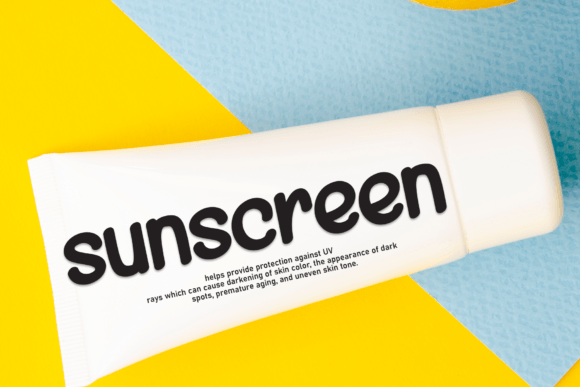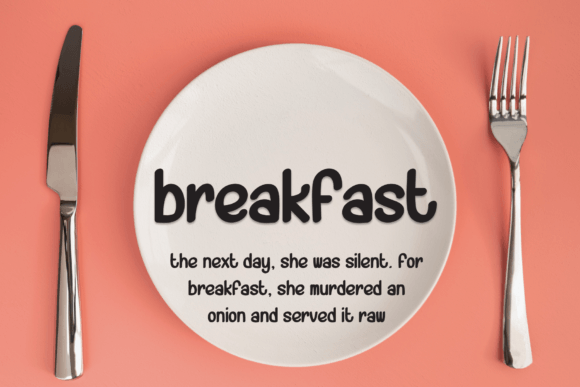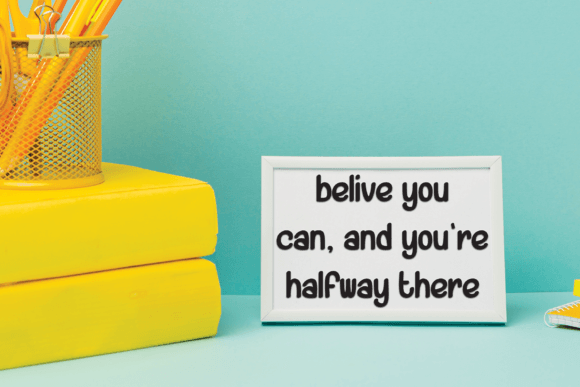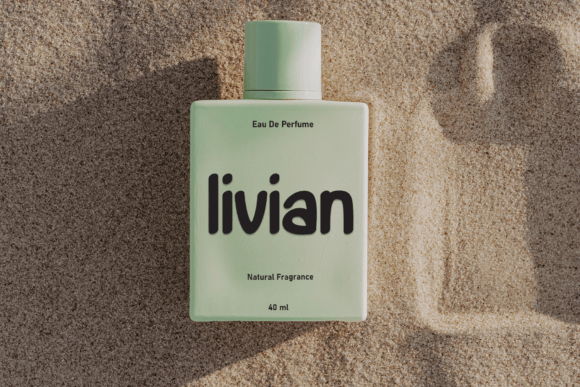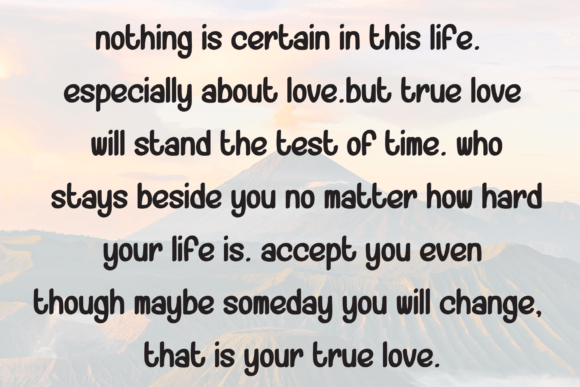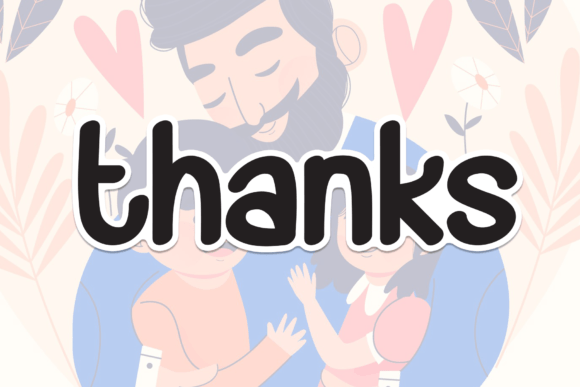
Introduction to Happy Daddy Font
Remember that moment when you stumbled upon the perfect font for your design project? The one that brings a smile to your face and makes everything just right? That’s exactly what the Happy Daddy Font does. This delightful handwritten display font is the perfect addition to any design, adding a touch of whimsy and friendliness to your creations.
Key Features of Happy Daddy Font
- Perfect for use in digital and print media, including logos, graphics, and text-based designs.
Honest Review: Happy Daddy Font
I recently stumbled upon the Happy Daddy Font, and I must say it’s been a delightful addition to my design resource library. As a designer, I’m always on the lookout for high-quality fonts that can elevate my creative projects.
One of the things that works well with this font is its versatility. It’s perfect for projects that require a playful, yet elegant touch. The font is available for free download, making it an excellent choice for designers who are working on a budget.
Overall, I’m impressed with the Happy Daddy Font. While it has some limitations, its high-quality design and versatility make it a valuable addition to any design library. I’d definitely recommend it to designers who are looking for a free, high-quality font for their creative projects.
How to Use Happy Daddy Font
Use the Happy Daddy Font as a design resource for your creative project. Experiment with different font sizes, colors, and styles to create a unique look. You can also use it in conjunction with other design elements, such as images and graphics, to create a visually appealing design.
The Happy Daddy Font is ideal for use in social media graphics, blog posts, and marketing materials. It’s also great for creating eye-catching headings and titles for your website or presentation. With its high-quality design and transparent background, it’s the perfect design resource for any creative project.